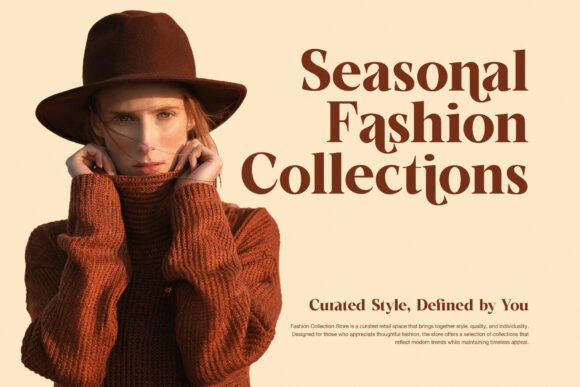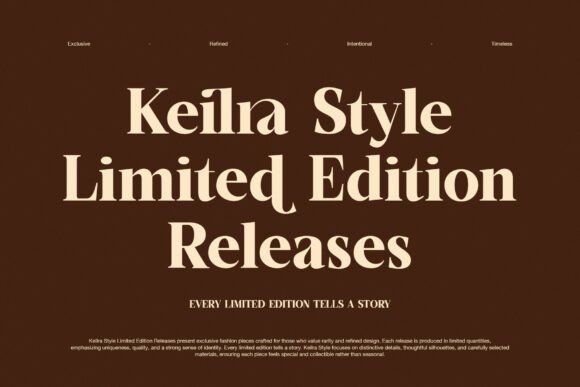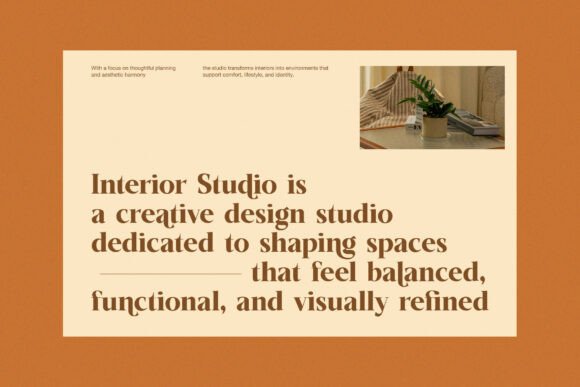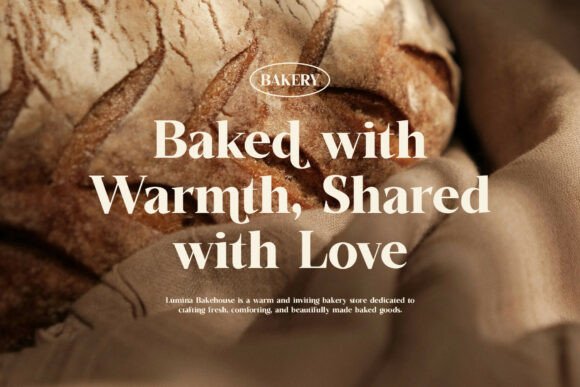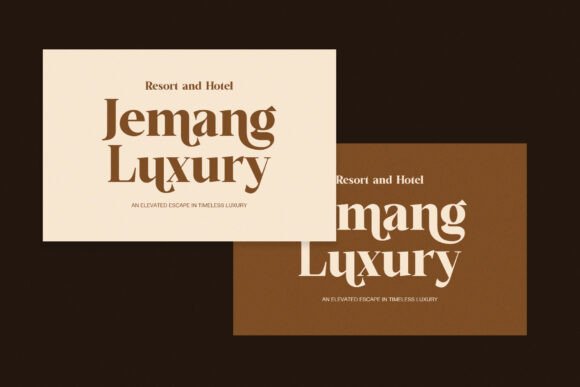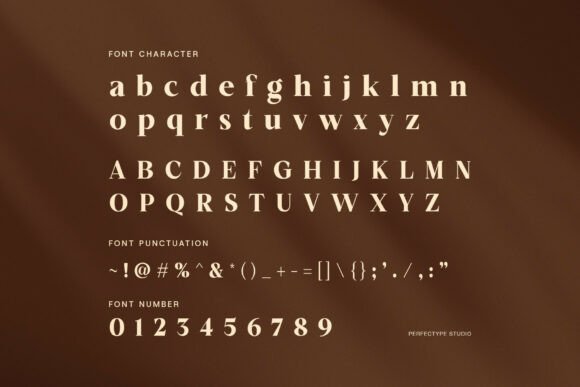
Introducing Grafista Font: Elevate Your Design with Elegance and Simplicity
In the world of typography, a well-crafted font can make all the difference in conveying the intended message and aesthetic of a design. For designers and crafters seeking a modern serif font that exudes confidence, warmth, and refined simplicity, Grafista is an exceptional choice. This elegant font is designed to make a lasting impression, offering a perfect blend of classic foundations and contemporary flair.
The Essence of Grafista: A Harmonious Balance of Style and Structure
Grafista is characterized by its thoughtful combination of smooth curves and balanced contrast, resulting in letterforms that appear soft yet structured. The classic serif foundations provide a sense of tradition and reliability, while the subtle details inject personality and sophistication. This harmonious balance makes Grafista an excellent option for designers who want typography that feels expressive yet controlled.
Key Features of Grafista Font
- Elegant Modern Serif Design: Grafista boasts a modern serif design that feels stylish and composed from the first impression.
- Balanced Contrast: The font’s balanced contrast adds depth and visual interest, making it perfect for a wide range of design applications.
- Smooth Curves: Smooth curves and rounded edges give Grafista a soft, approachable feel without compromising on structure or legibility.
- Clean and Timeless Design: The overall design of Grafista remains clean and uncluttered, ensuring it feels timeless and versatile.
Why Choose Grafista for Your Design Projects?
Grafista offers a unique combination of elegance, simplicity, and expressiveness, making it an ideal choice for various design projects. Here are some reasons why designers and crafters can benefit from using Grafista:
- Versatility: Grafista’s clean and timeless design makes it suitable for a wide range of applications, from branding and advertising to publishing and digital media.
- Legibility: The font’s balanced contrast and smooth curves ensure excellent legibility, even at smaller sizes.
- Emotional Connection: Grafista’s elegant and refined design helps create an emotional connection with the audience, making it perfect for projects that require a touch of sophistication.
- Unique Personality: The subtle details in Grafista add a unique personality to the font, setting it apart from more traditional serif fonts.
Grafista is a stunning modern serif font that offers the perfect blend of elegance, simplicity, and expressiveness. Its unique combination of smooth curves, balanced contrast, and subtle details makes it an excellent choice for designers and crafters seeking typography that feels refined, sophisticated, and timeless. Whether you’re working on a branding project, creating a website, or designing a marketing campaign, Grafista is sure to elevate your design and leave a lasting impression.
With its versatility, legibility, and unique personality, Grafista is poised to become a go-to font for designers seeking to create beautiful, effective typography. By incorporating Grafista into your design workflow, you’ll be able to create stunning visual content that resonates with your audience and sets your work apart from the rest.